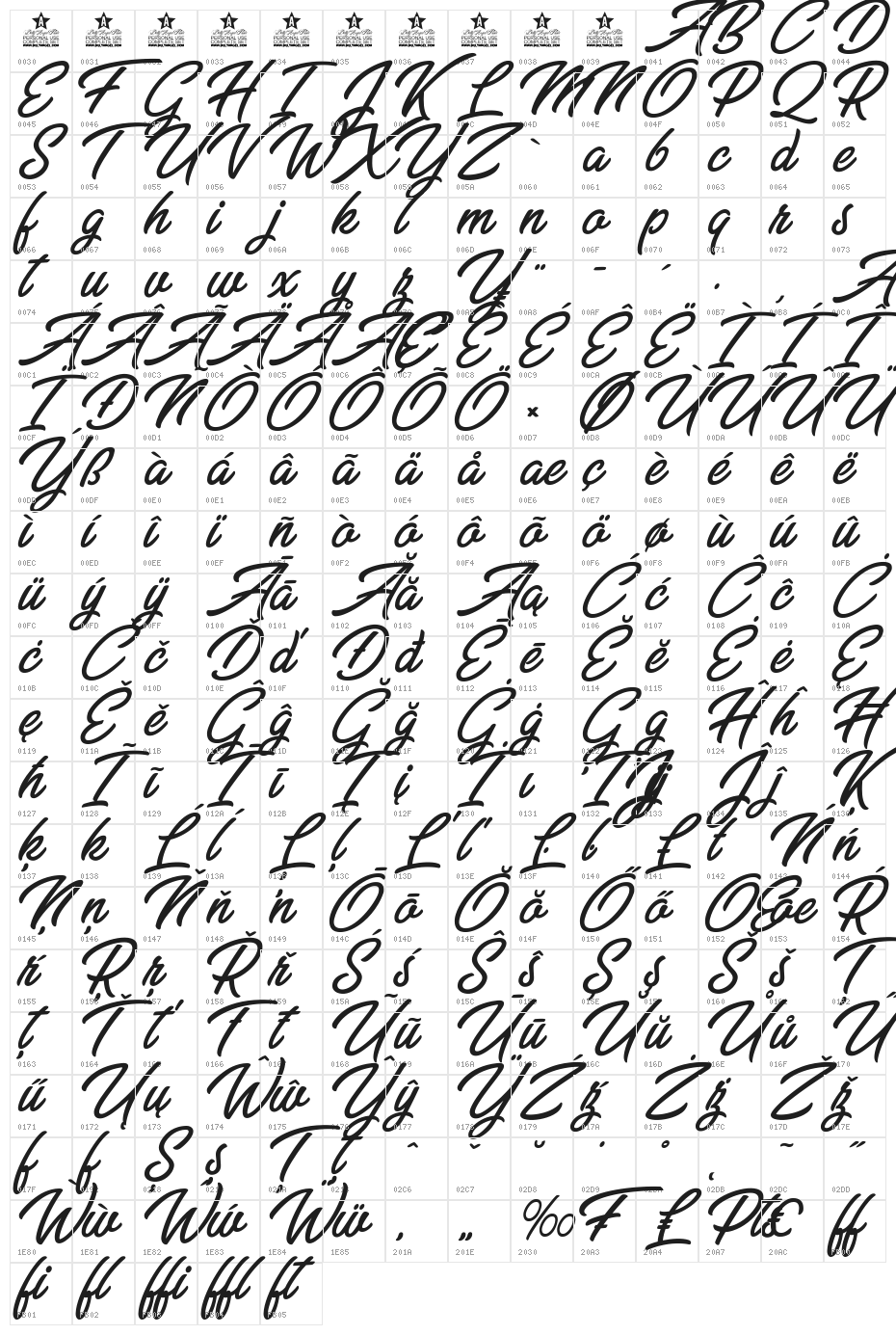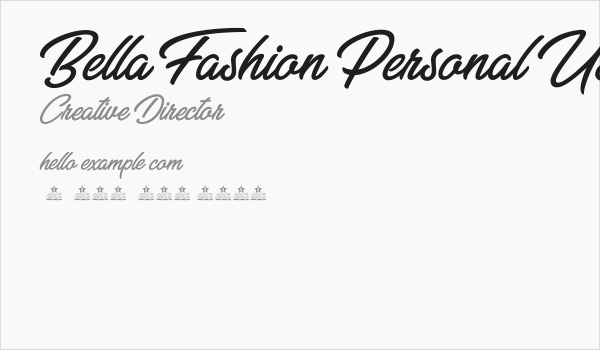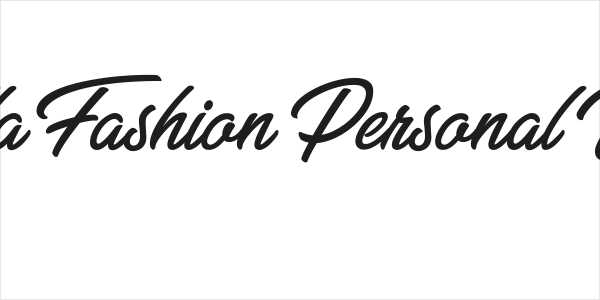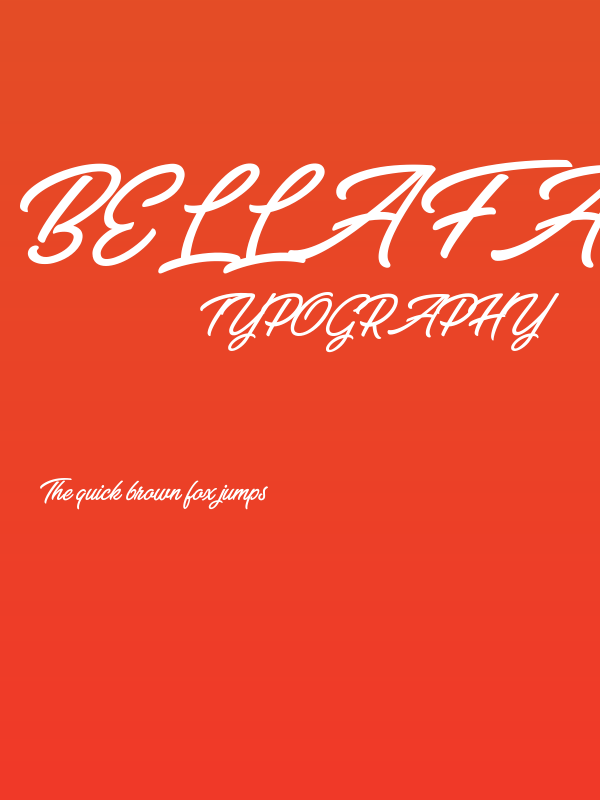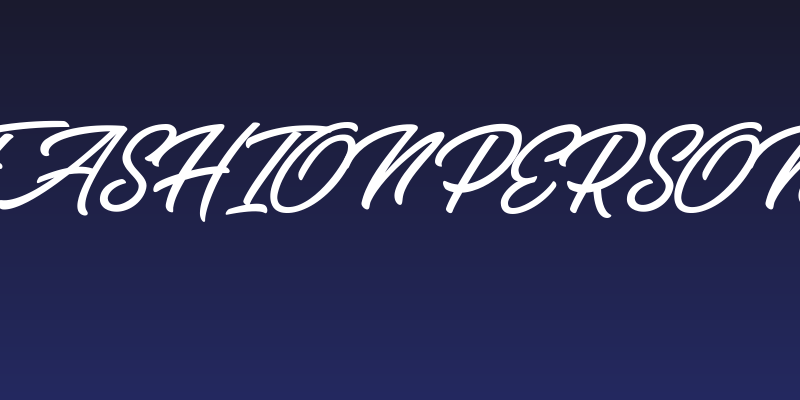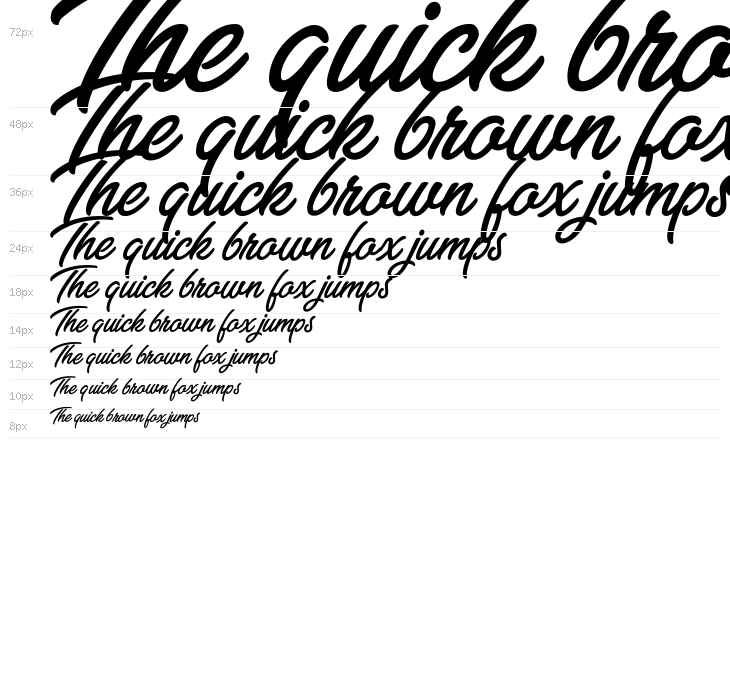
Bella Fashion Personal Use Font
Bella Fashion Personal Use Description
This font features a stylish and elegant script design, characterized by its flowing, cursive letterforms. The uppercase letters are bold and slightly slanted, giving a sense of movement and sophistication. The lowercase letters maintain a consistent style, with smooth connections between each character, enhancing its fluidity. The font's overall appearance is both modern and classic, making it versatile for various design applications. Its bold weight and medium contrast in stroke thickness add to its readability while maintaining an artistic flair.
| Proposed Projects | Ideal for fashion branding, wedding invitations, personal stationery, and elegant logo designs. |